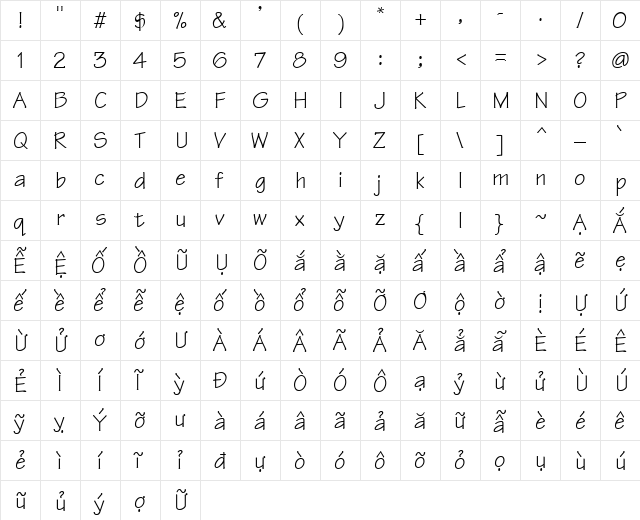
VI Phong Lan Regular Font Preview
VI Phong Lan Regular
Design Context for VI Phong Lan Typeface
VI Phong Lan is a composed and adaptable typeface that performs quietly and consistently across a wide range of design contexts.